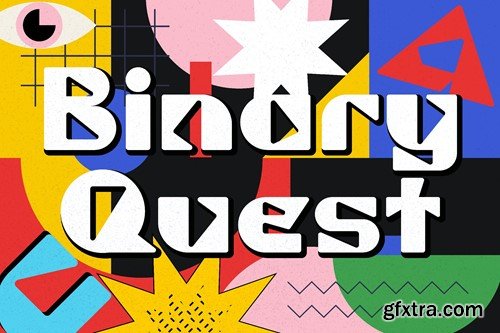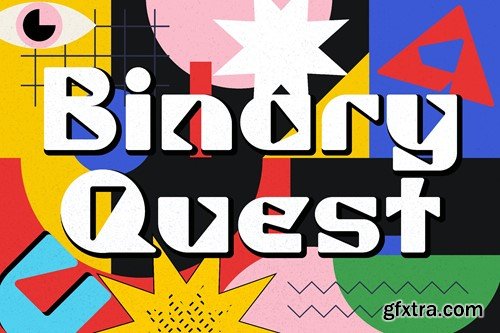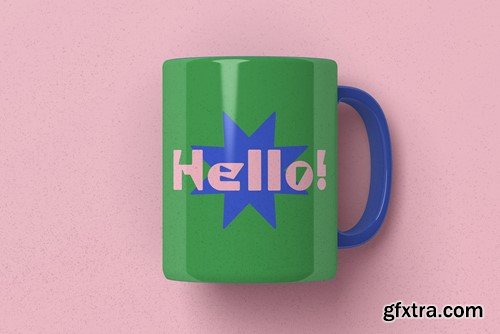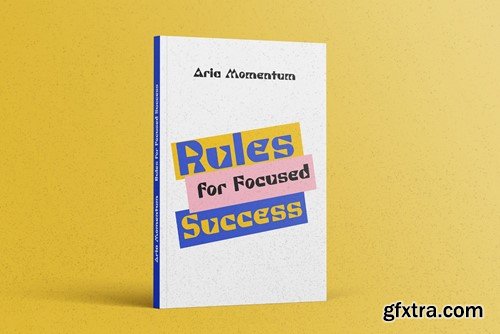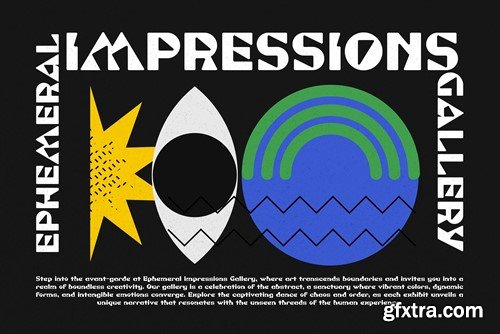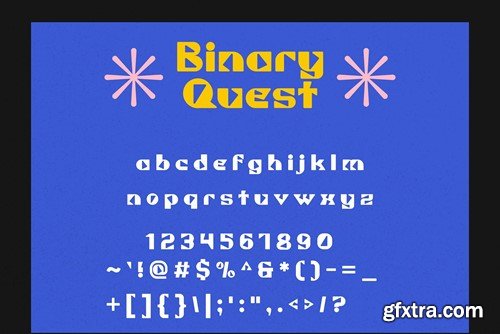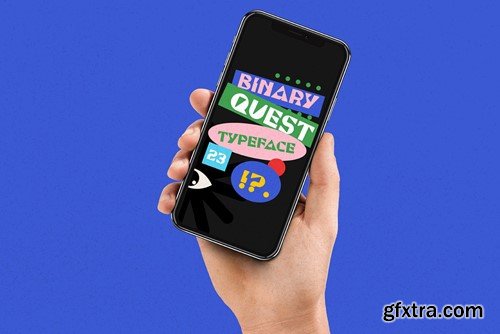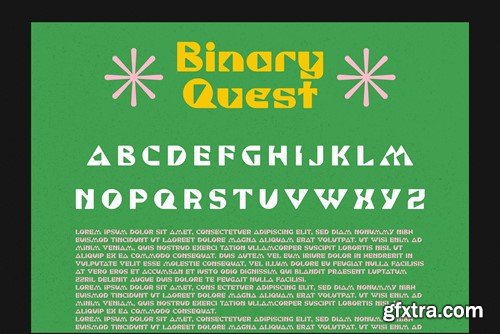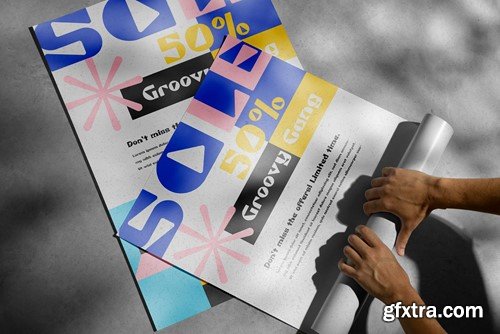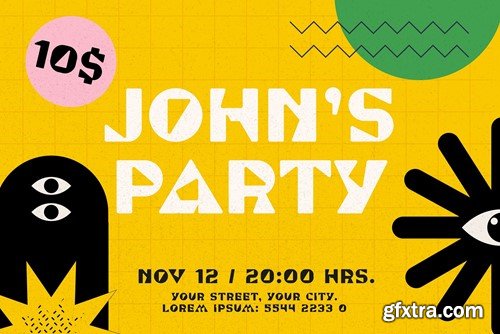
二进制探求者 - 计算机启发型字体C7MPYMN
Binary Quest is a thrilling and dynamic font that transports you straight into the heart of the 1980s computing era. Inspired by the iconic aesthetics of early computer systems, this font encapsulates the spirit of technological innovation and nostalgia. It's a perfect homage to a time when digital design was just finding its feet, combining the retro charm of pixelated graphics with a modern twist. This font is fun, unique, and unapologetically quirky, making it stand out in a sea of conventional typefaces. Each character in Binary Quest is a work of art, carefully crafted to capture the essence of vintage computer displays while maintaining crisp, clean lines that ensure readability and impact. The font's blocky, pixelated style is instantly memorable, sparking a sense of curiosity and playfulness in the viewer. Binary Quest is more than just a typeface; it's an adventure in typography, inviting designers to explore the intersection of technology and creativity. Whether used for eye-catching logos, nostalgic video game designs, or innovative marketing materials, this font promises to make a bold statement. It's ideal for projects that require a touch of whimsy and a nod to the digital pioneers of the past, making it a must-have for anyone looking to infuse their work with the spirit of the 1980s computing revolution. What's Included : Accessible in the Adobe Illustrator, Adobe Photoshop, Corel Draw. PUA Encoded Characters - Fully accessible without additional design software. Image used : All photographs/pictures/vector used in the preview are not included, they are intended for illustration purpose only.